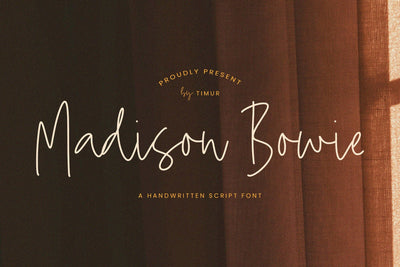
Madison Bowie - Handwritten Script Font
Madison Bowie is a Handwritten Script Font
This font is a graceful handwritten script font that exudes elegance and charm. Its flowing curves and gentle strokes evoke a sense of sophistication, making it perfect for projects that require a touch of style. Whether used for wedding invitations, branding, or editorial designs, Madison Bowie stands out with its unique blend of modernity and classic handwritten appeal. Its versatility ensures it can adapt to various design contexts while maintaining its distinctive character and readability.